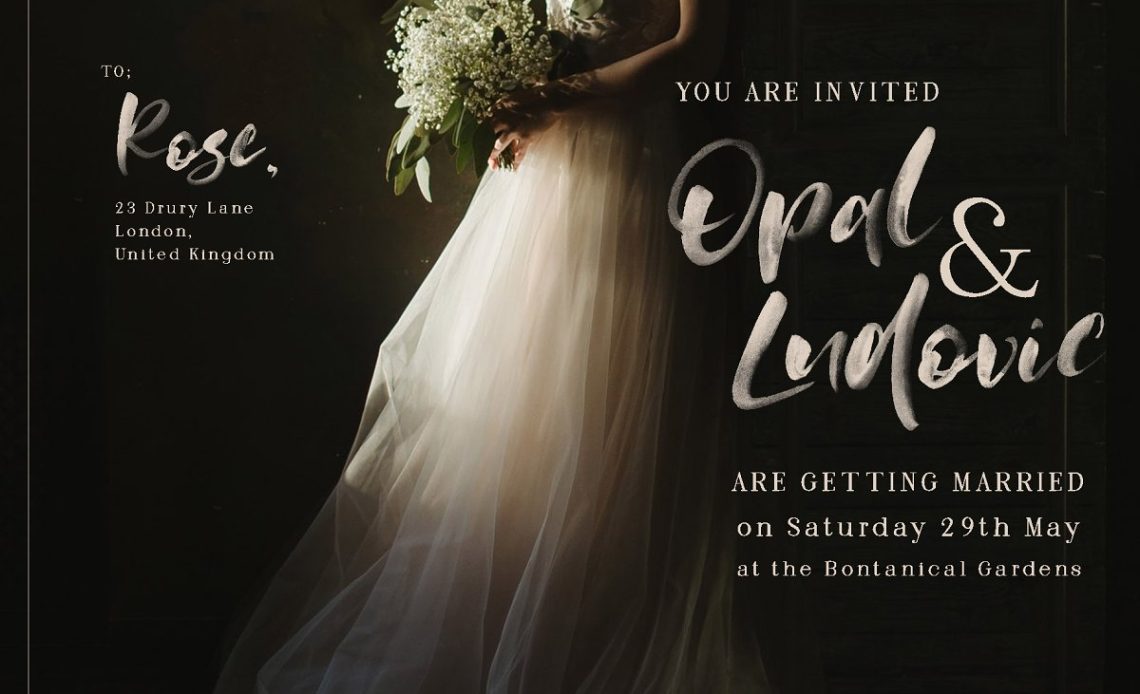
Looking for the perfect script and serif font duo to elevate your in-line type? Look no further than KindSoul SVG Script & Serif Font Duo, created by the talented Lucy! This font family is the ultimate combination of adorable hand-painted watercolor and smooth, classy serif fonts that will add a touch of elegance and playfulness to your designs.
What makes KindSoul truly special is its use of SVG font technology, which creates a beautiful transparent hand-painted effect that is perfect for adding a unique touch to your designs. If you don't have the right program to use the SVG font, don't worry - KindSoul also comes with a Photoshop Layers file that includes all of the individual characters, numbers, and symbols, making it easy to create beautiful words and designs with any program.
But KindSoul isn't just limited to the SVG font. It also includes a Brush and Solid version of the font, which can be used in any program that uses normal system fonts. And with a beautiful serif font that pairs perfectly with the SVG and Brush versions, you have endless options for creating beautiful designs.
Whether you're looking to add a touch of whimsy to a wedding invitation or create a playful logo for your business, KindSoul is the perfect choice. And with its international language support, including all accents in the Photoshop file, you can create stunning designs no matter where you are in the world.